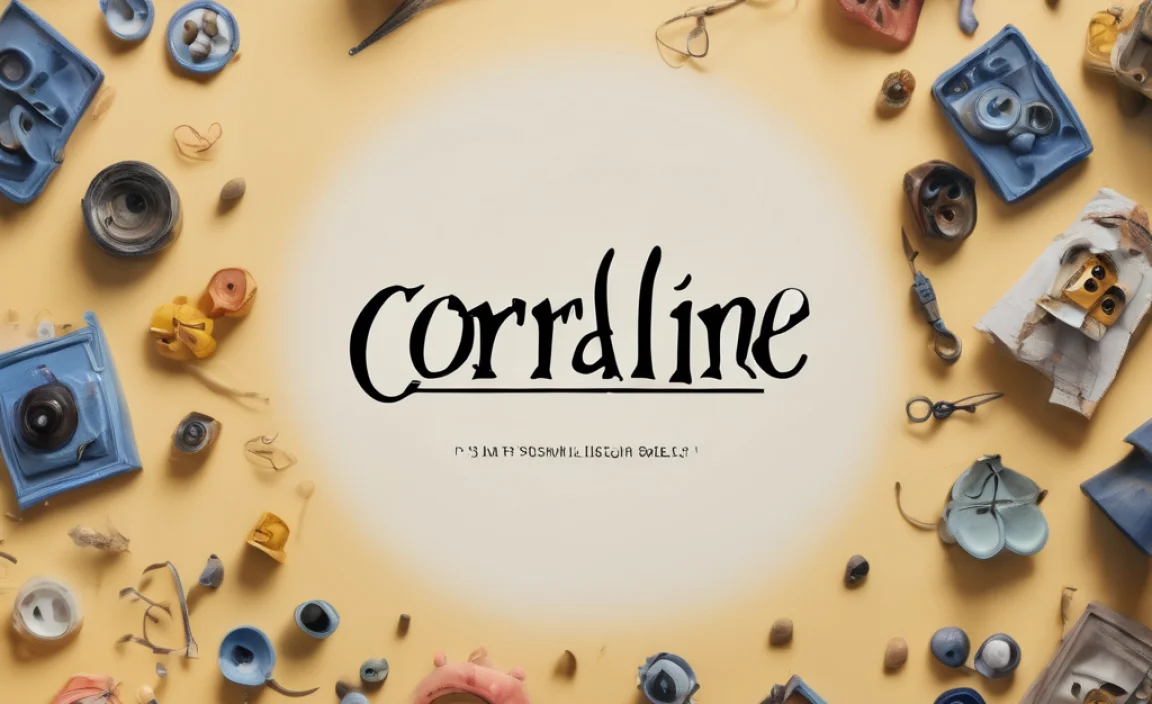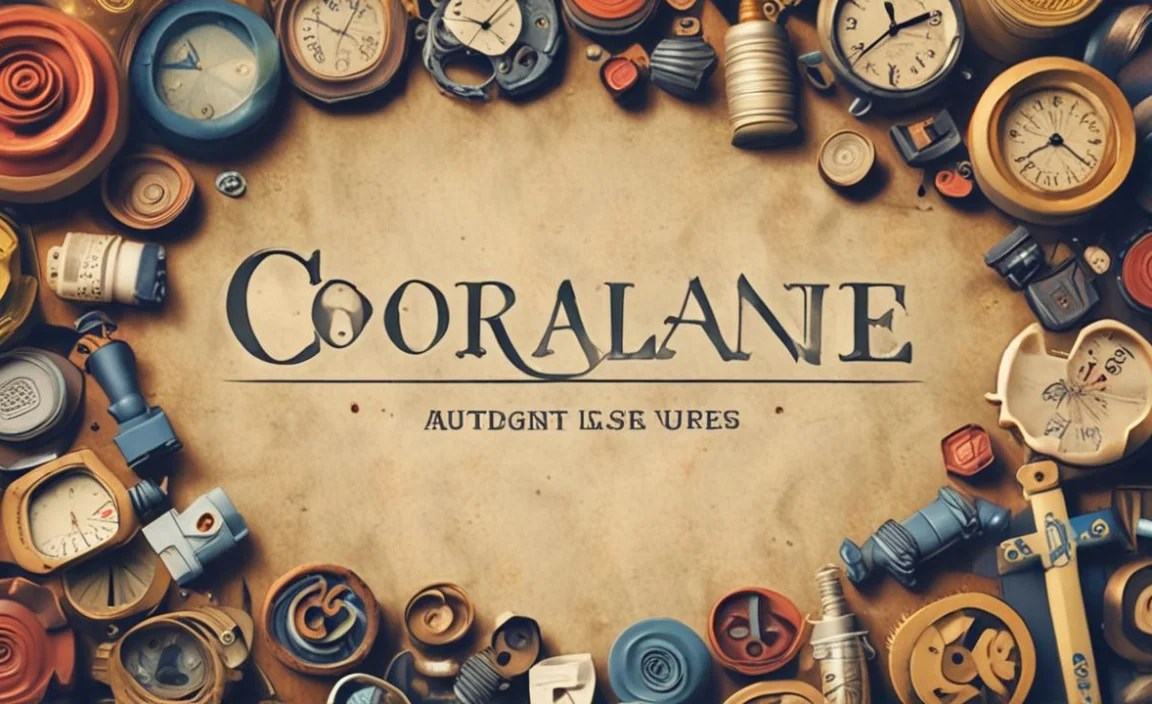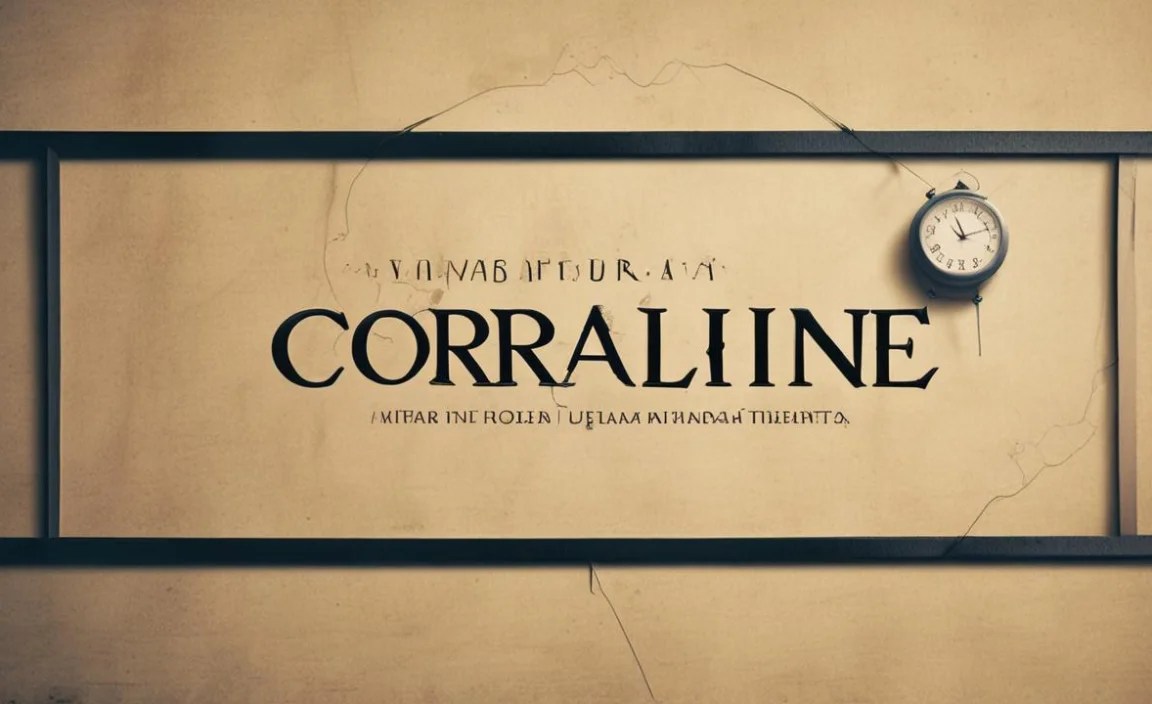
Coraline font, designed by Sinister Fonts, is a whimsical and spooky typeface. It has gained popularity, especially around Halloween. The font uniquely blends curly, decorative elements and modern flair. This makes it perfect for creating logos, invitations, or any project that needs a touch of fun and eeriness.
Whether you’re designing for personal use or commercial purposes, Coraline font strikes a great balance between creativity and professionalism.
Coraline Font Family And Style
The Coraline font is part of the Sinister fonts collection, known for producing high-quality fonts that are ideal for Halloween or other themed designs.
It is a decorative font with a serif style, which gives it a traditional yet modern appearance. The font is available in the Opentype format, offering compatibility with most design software. The Coraline font family features multiple styles, including Regular, and the font is popular for its curly edges and intricate detailing.
Character Map
The character map of the Coraline font includes a wide range of symbols, uppercase and lowercase letters, punctuation marks, and special characters. Some of the unique features of the font include curly accents and the inclusion of various foreign characters, allowing for global use in different languages. Whether you’re writing in Swahili, English, or other supported languages, Coraline’s versatility makes it a great choice for a variety of designs.
Pairing Coraline Font with Other Fonts
To achieve the best effect when using Coraline font in your design, it’s important to pair it with the right font combinations. Since Coraline is a decorative font, it pairs well with sans-serif fonts like Roboto or Montserrat for a cleaner look. For projects that require a more traditional feel, combining Coraline with a typewriter font like Courier can create a vintage and spooky vibe. Brush fonts can also work well with Coraline, particularly when designing logos or invitations that require a playful, handwritten touch.
Similar Fonts to Coraline
Uses for Coraline Font
The Coraline font is perfect for a wide range of applications, from creating invites for Halloween parties to designing logos for haunted houses. Its decorative nature makes it ideal for scary and Halloween-themed content, while its clear readability ensures it can be used in professional and commercial printing as well. Whether you’re making Facebook posts, designing signs, or simply experimenting with typography, Coraline adds a creative touch.
Final Thoughts
Overall, Coraline is a versatile and stylish font suitable for both personal and commercial use. Its playful yet spooky nature makes it a great fit for Halloween projects, party invitations, logos, and much more. Whether you’re a professional designer or just experimenting with fonts, Coraline can add a unique flair to your designs.
Can Coraline Be Used In Different Languages?
Yes, Coraline supports several languages, including English, Swahili, and more.
What Fonts Pair Well With Coraline?
Coraline pairs well with sans-serif fonts, typewriter fonts, and brush fonts.
Who Is The Designer Of Coraline?
Coraline was designed by Felix Braden.